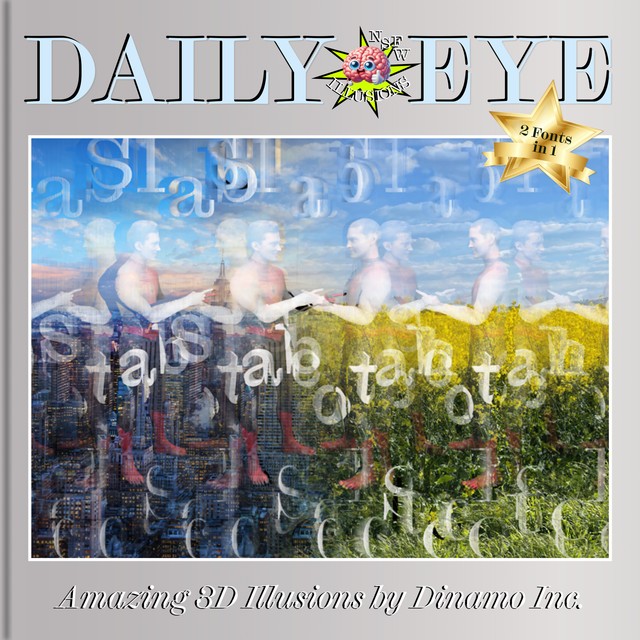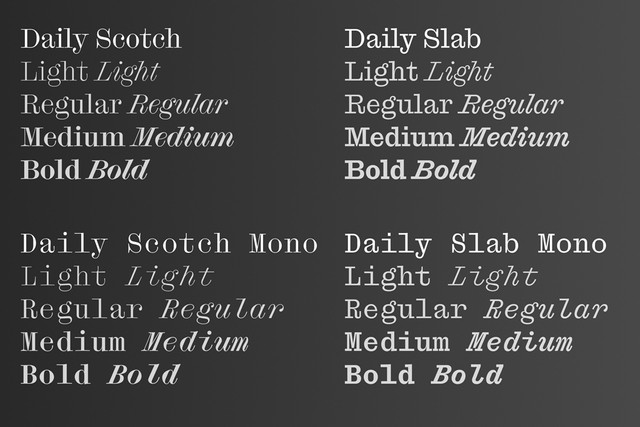
Quite often, seemingly different typeface styles have a lot more in common than it might seem on first appearance. You just need to know how to look.
Keep this in mind as I introduce ABC Daily to you today, a type family containing two distinct sub-families: Slab and Scotch. The duo-genre system reveals the connections and similarities between these two seemingly opposing typeface styles; one known for flat-bottomed serifs, the other for its elegant, slender lines and teardrop terminals.
Styles like Slab and Scotch are actually two sides of the same coin, united by a deep genetic resemblance. ABC Daily ties these affinities together, revealing and highlighting the skeletal DNA that connects the two.
Designed by Dinamo team member Michelangelo Nigra, Daily contains four families with 32 styles; its dual nature makes it ideal for display and text applications. Both Slab and Scotch feature an Upright range from Light to Bold with corresponding Mono and Italics.
Maybe getting a little lost in our own threads of connections, we created Dinamo Inc. Daily Eye autostereograms to commemorate this font release. Something about looking closely, and how one thing can actually contain two things, if you know how to look. All designed by Tina Lehmkuhl.
Apart from its Scotch-or-Slab dual capabilities, Daily as a whole features generously wide serifs set against relatively narrow letterforms. The uppercase letters, like its distinctive “M, are unusually compact—the opposite of what you’d typically associate with uppercase forms.
Notice how Daily’s teardrop terminals are also present in both subfamilies but in different ways. In the Slab style, due to its low contrast, the terminals almost appear round and monolinear. This look is reversed in the Scotch style, where the same treatment combined with higher contrast makes the drop terminal stand out more prominently.